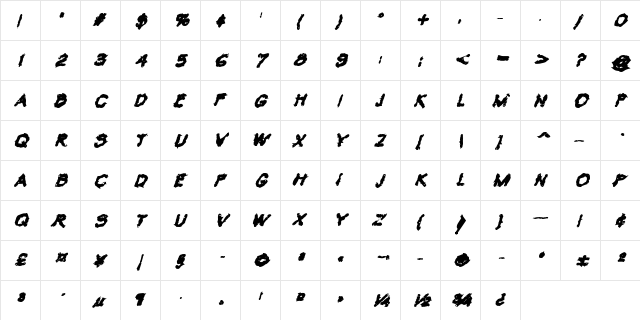
VTC Krinkle-Kut Bold Italic Font Preview
VTC Krinkle-Kut Bold Italic
Design Context for VTC Krinkle-Kut Typeface
VTC Krinkle-Kut is a composed and adaptable typeface that performs quietly and consistently across a wide range of design contexts. The dynamic lean of this cut emphasises speed and emphasis in any layout. Its bold stroke weight gives it real presence on the page.
Pro Tip: Use VTC Krinkle-Kut for emphasis, pull quotes, and subheadings where its slanted energy can add rhythm to the layout.